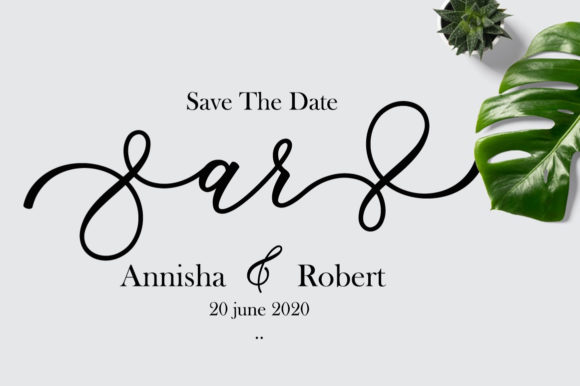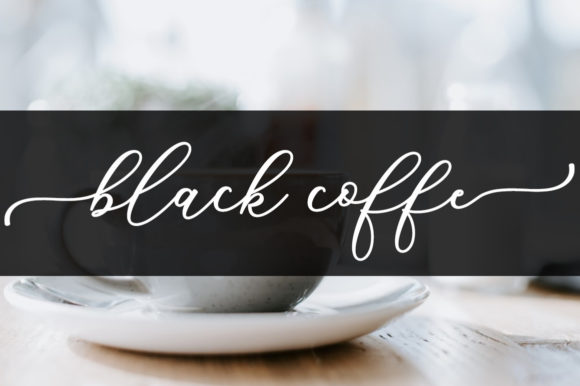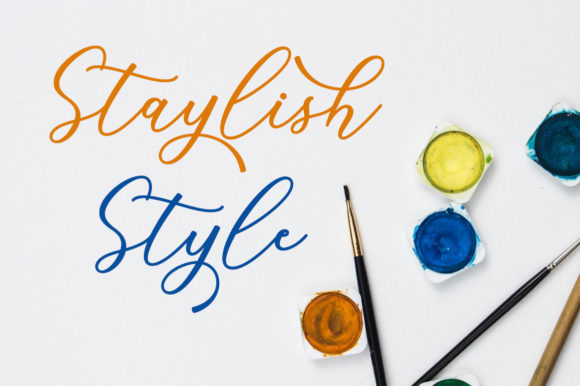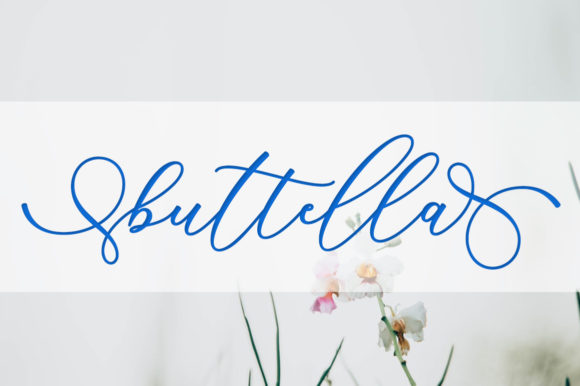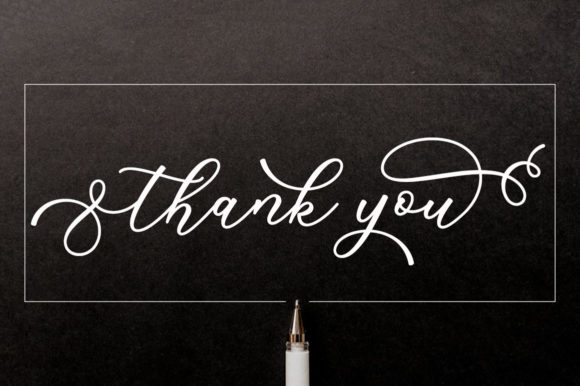
Introducing Astaga Font: Elevate Your Designs with Timeless Elegance
In the world of typography, few fonts manage to capture the essence of elegance and authenticity as effortlessly as Astaga. This modern script font is meticulously crafted to bring a touch of sophistication to your designs, making it an ideal choice for creatives looking to infuse their projects with a sense of luxury and refinement. Whether you’re a seasoned designer or a crafting enthusiast, Astaga is poised to become your go-to font for creating stunning visual content.
The Beauty of Astaga
At its core, Astaga is a beautiful amalgamation of timeless elegance and authentic calligraphy. Its fluid strokes and graceful curves evoke a sense of nostalgia, reminiscent of traditional calligraphy, while its modern undertones ensure it remains fresh and relevant. This unique blend makes Astaga incredibly versatile, suitable for a wide range of applications from wedding invitations and stationery to social media posts and greeting cards.
Designed for Creatives
Understanding the needs of modern creatives, Astaga has been designed with functionality in mind. The font is PUA (Private Use Area) encoded, which means accessing the array of cute glyphs and swashes is straightforward, allowing you to enhance your designs with ease. This feature is particularly beneficial for designers who want to add a personal touch to their work without the hassle of complicated font management.
Special Features for Enhanced Creativity
Astaga doesn’t just stop at being a beautifully designed script font. It comes packed with special features that can elevate your designs to new heights. These include:
- Alternate Glyphs: Offering variations of letters and symbols, allowing for greater customization and uniqueness in your designs.
- Ligatures: Combining letters or symbols to create a more harmonious and visually appealing text flow.
These features not only make designing more efficient but also open up a world of creative possibilities, enabling you to produce work that stands out from the crowd.
Practical Applications of Astaga
The versatility of Astaga makes it suitable for a myriad of projects. Here are a few ideas to get you started:
- Wedding Invitations: Add a touch of elegance and romance to your wedding invitations, making the occasion even more special for the couple.
- Stationery Art: Create beautiful, personalized stationery that reflects your or your client’s personality.
- Social Media Posts: Elevate your social media content with stylish text that captures attention and engages your audience.
- Greeting Cards: Design heartfelt greeting cards for any occasion, making them memorable with Astaga’s charm.
Astaga is more than just a font; it’s a tool for creatives to express their vision with elegance and authenticity. Its combination of modern script style with traditional calligraphy, along with its user-friendly features, makes it an invaluable asset for designers and crafters alike. Whether you’re looking to add a touch of sophistication to your designs or simply seeking a font that can keep up with your creative demands, Astaga is an excellent choice. Embrace the beauty of Astaga in your next project and experience the difference it can make.